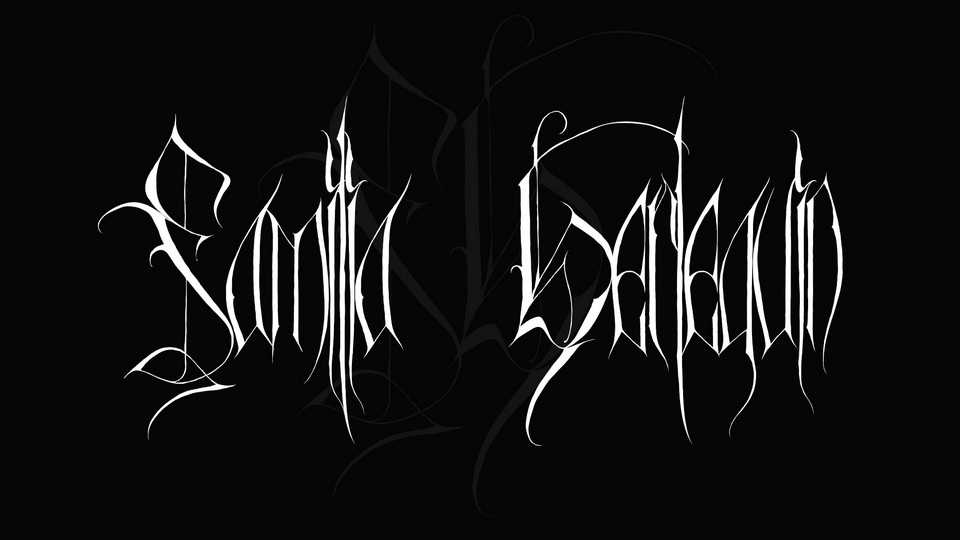
Familia Herlequin Font › Fontesk
Download Familia Herlequin font, a dark and sharp hand lettered blackletter typeface. With its unique personality, Familia Herlequin font is perfect for metal band logos or underground bands or concert posters and album artworks.